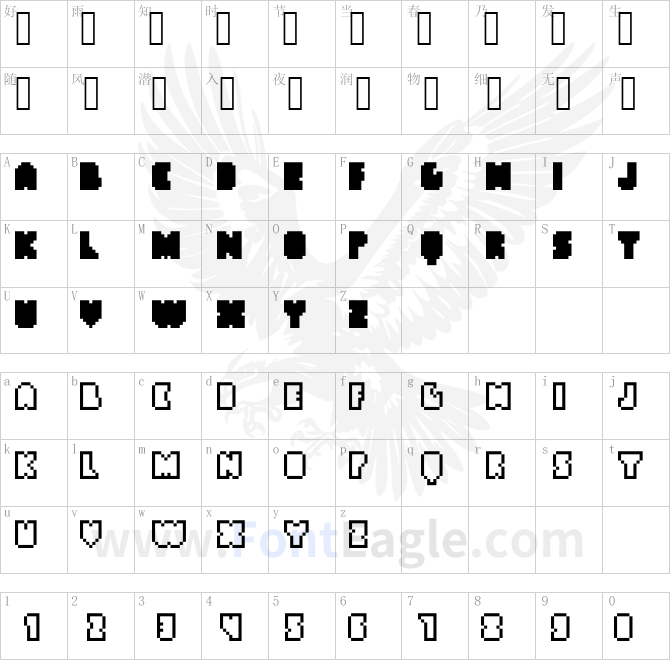
- Font name:ApplyBeef
ApplyBeef is a great font, widely used in graphic design, single-page menu design, poster design and other fields, and is deeply loved by designers.ApplyBeef download.